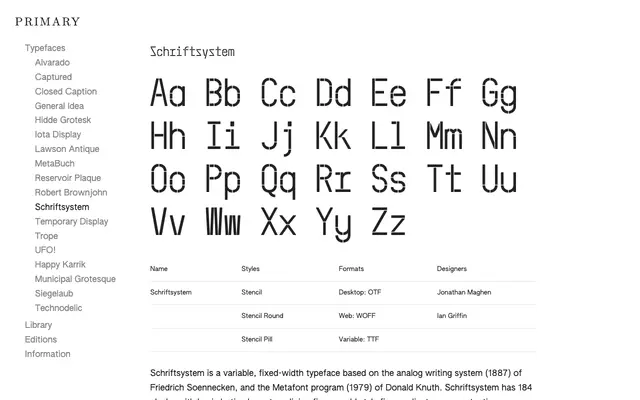
Schriftsystem
Primary Foundry · Jonathan Maghen, Ian Griffin
A variable, fixed-width stencil typeface by Jonathan Maghen and Ian Griffin, drawing on Friedrich Soennecken's 1887 analogue writing system and Donald Knuth's Metafont program.
Three stencil styles, Stencil, Stencil Round and Stencil Pill, share a fixed-width structure informed by two very different historical sources: Soennecken's nineteenth-century handwriting system and Knuth's parametric font-description language. The family ships in desktop OTF, web WOFF and variable TTF formats, with 184 glyphs covering lining and old-style figures, ligatures and extensive alternates. Desktop use is available free for self-initiated, non-profit and cultural projects.
Described explicitly as a fixed-width typeface with stencil cuts; the monospaced structure and stencil aesthetic place it firmly in the mono category with a stencil subcategory.